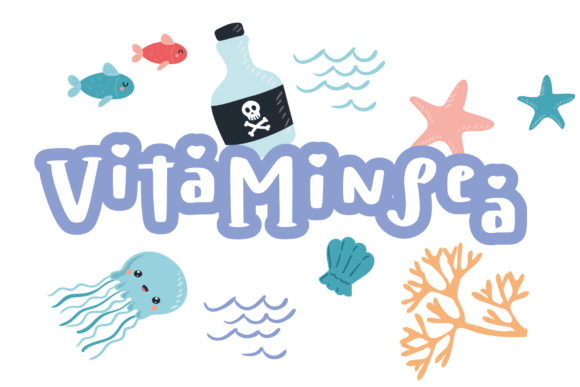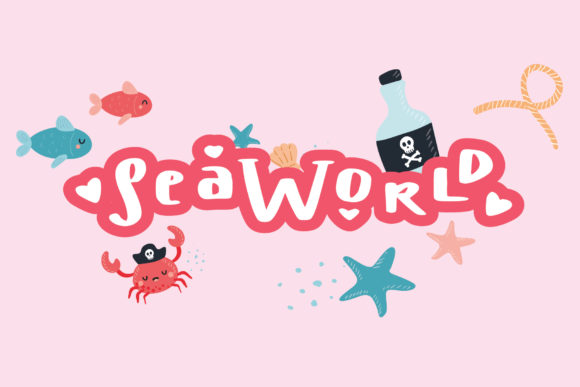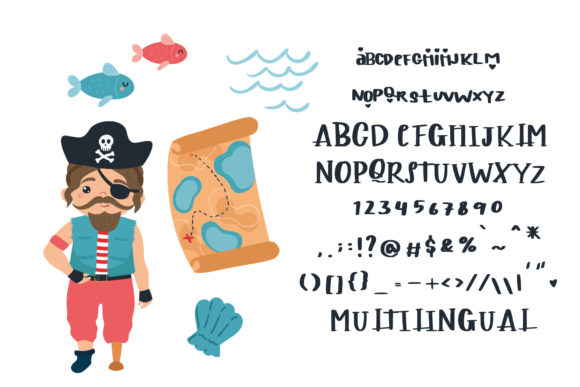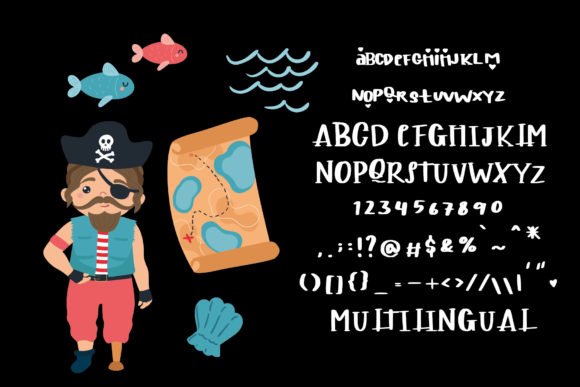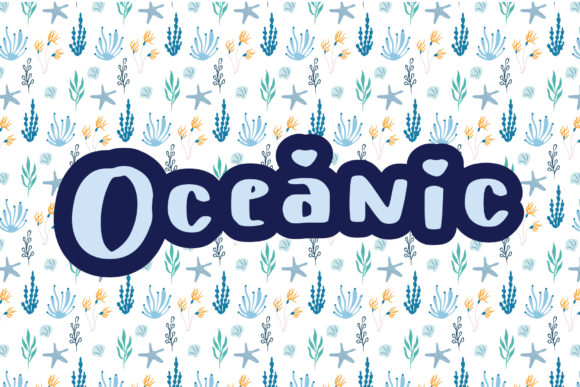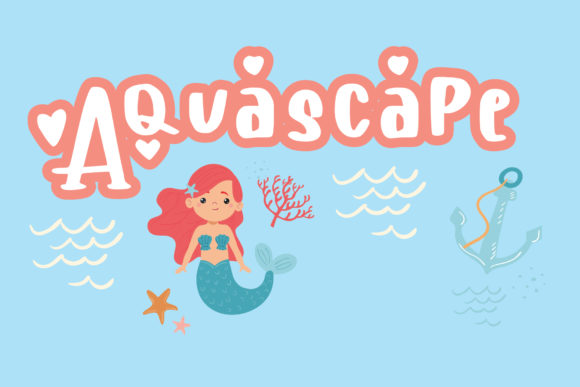
The Joyful World of Aquascape Font
I’ll never forget the time I was working on a children’s activity book, and I just couldn’t find the right font to bring the illustrations to life. The project required something playful, yet authentic – a font that would make the kids excited to learn. That’s when I stumbled upon Aquascape Font, and it was love at first sight! 💕
Aquascape is a cute and fun decorative font that embodies playfulness and authenticity, making it the perfect choice for any children’s activity or school project. Its unique design adds an incredibly joyful touch to your designs, and I’m excited to share its features, uses, and alternatives with you.
An Honest Review of Aquascape Font
- ✨ Playful and fun design: Aquascape Font is perfect for creating engaging and interactive content for kids.
- ✅ Easy to read: Despite its decorative nature, the font remains clear and readable, even at smaller sizes.
- 🎉 Versatile: Aquascape Font can be used for various design projects, from children’s books to school posters and activity sheets.
While Aquascape Font is amazing, there are a few things to keep in mind: 🤔
- ⚠️ Limited use cases: Due to its playful nature, Aquascape Font might not be suitable for formal or professional designs.
- ⚠️ Glyph limitations: The font may not have an extensive range of glyphs or special characters, which could limit its use in certain projects.
The Designer Inspiration Behind Aquascape Font
Although the actual designer of Aquascape Font remains a mystery, it’s clear that they were inspired by the world of children’s imagination and creativity. The font’s playful and authentic design makes it perfect for bringing joy and excitement to kids’ content.